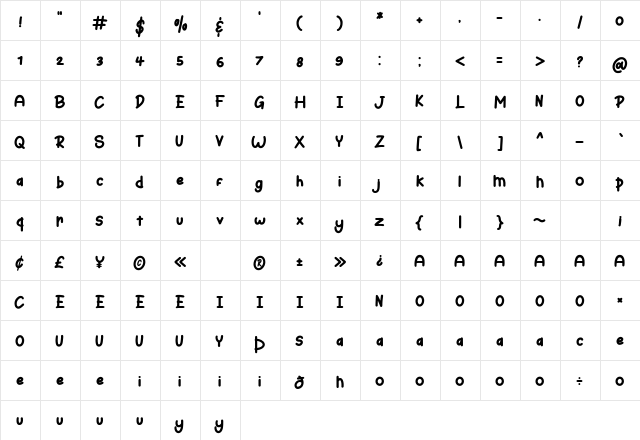
Bunny Hopper Regular
Design Context for Bunny Hopper Typeface
Bunny Hopper is a composed and adaptable typeface that performs quietly and consistently across a wide range of design contexts.
Pro Tip: Use Bunny Hopper in both headline and body roles to test its range before committing to a single application.